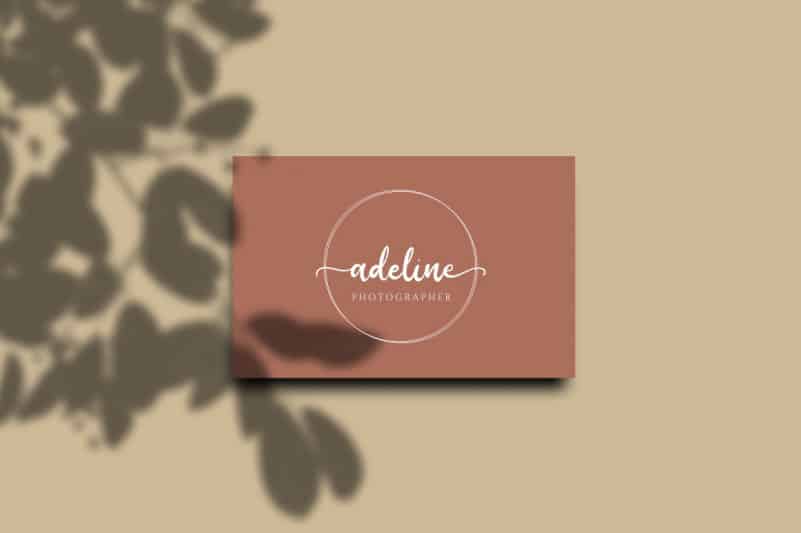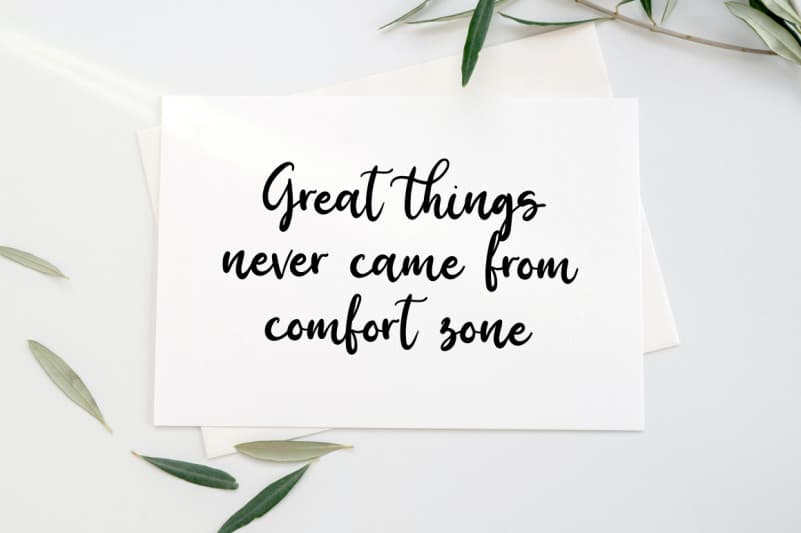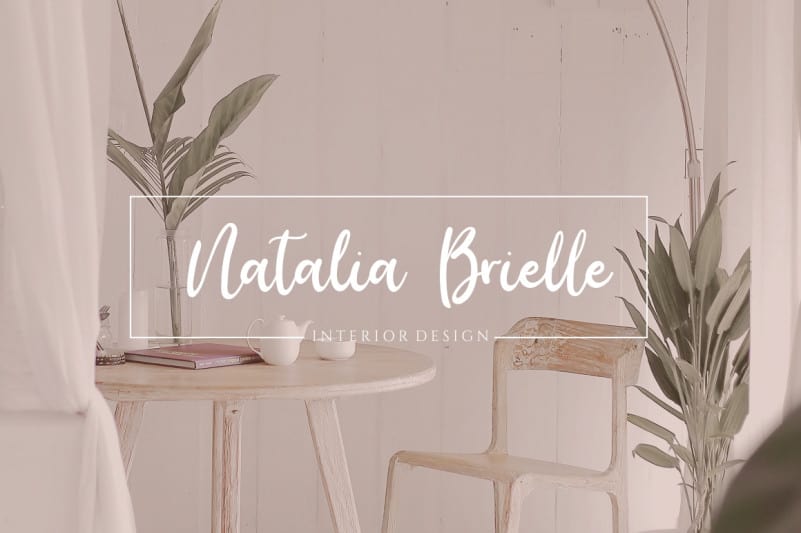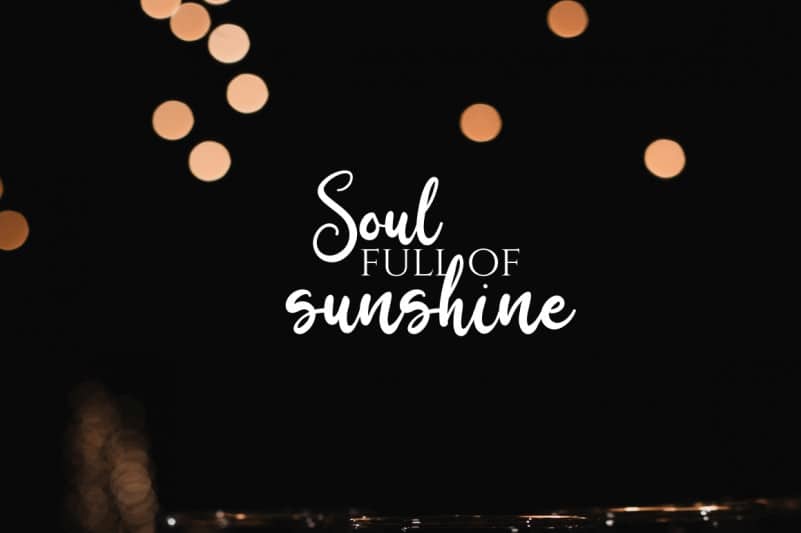
Birdy Home Script Font
Birdy Home Script Font is a cute modern script font with beginning and ending swashes, and ligatures that add more beautiful and aesthetic fonts. It’s perfect choice for stylish branding & logo projects, product packaging, handwritten quotes, editorial design invites, greetings and so much more!